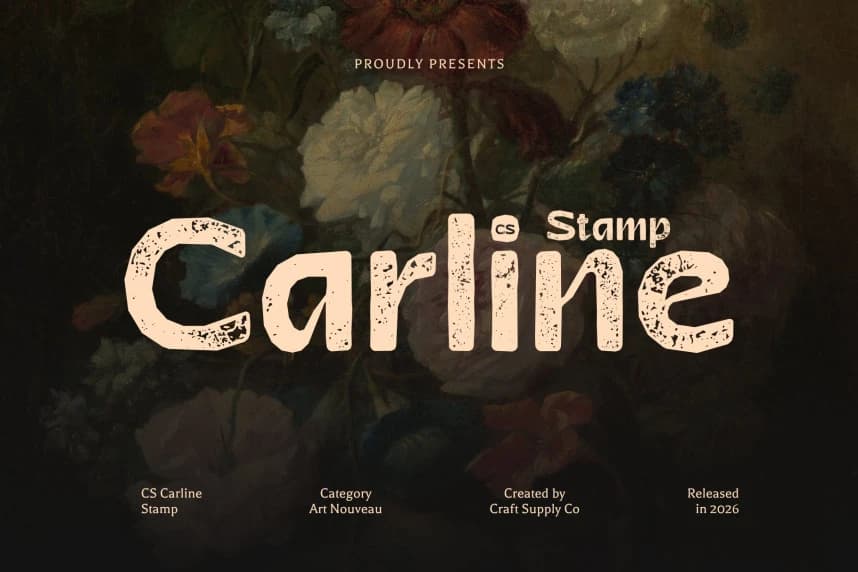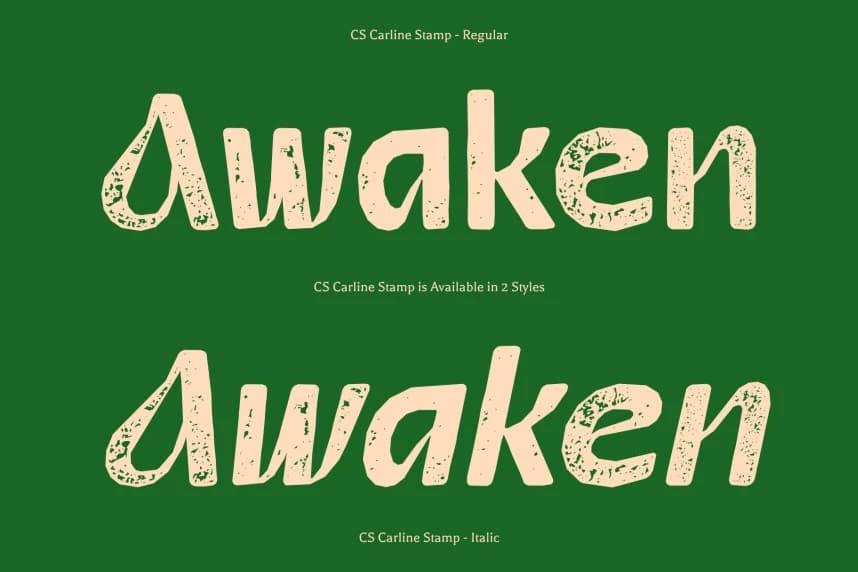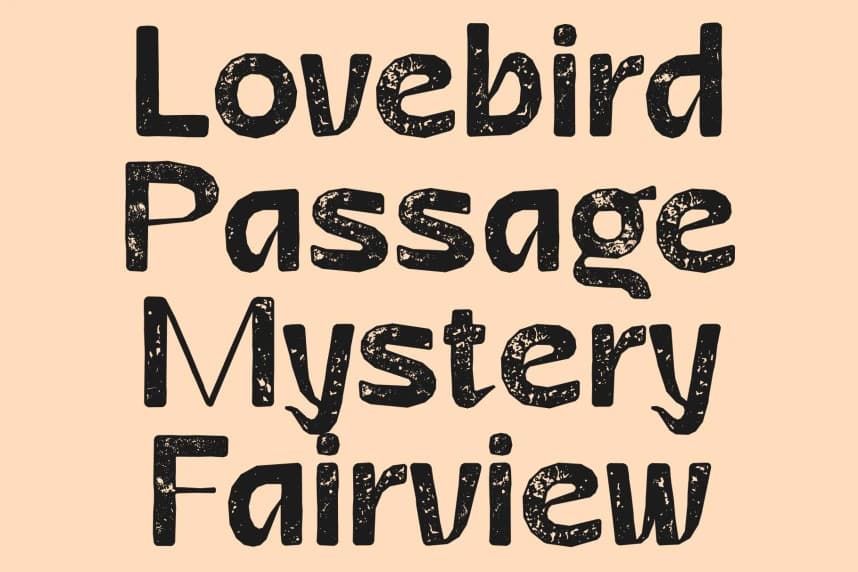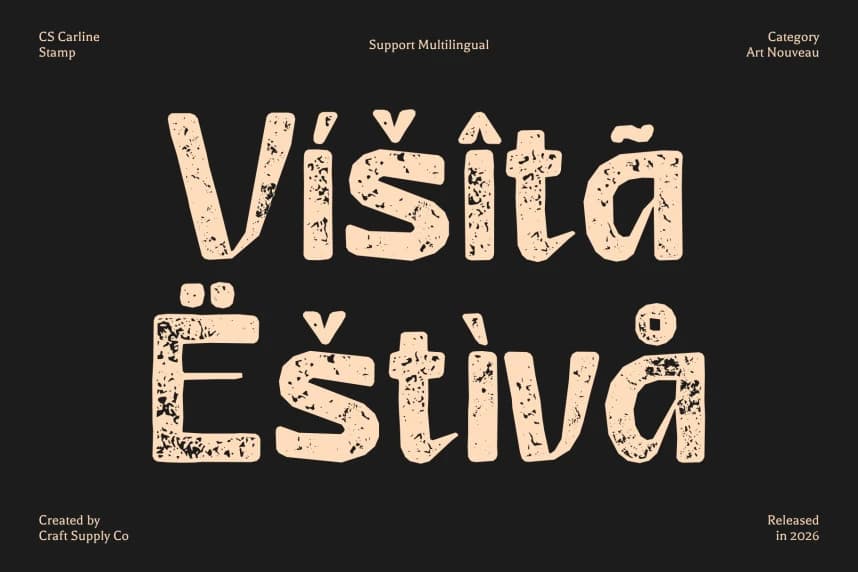
CS Carline Stamp Font
CS Carline Stamp Font – Art Nouveau Elegance with Vintage Texture Graceful Curves with Decorative Art Nouveau Character. This is a modern sans-serif font inspired by the flowing beauty of Art Nouveau design.